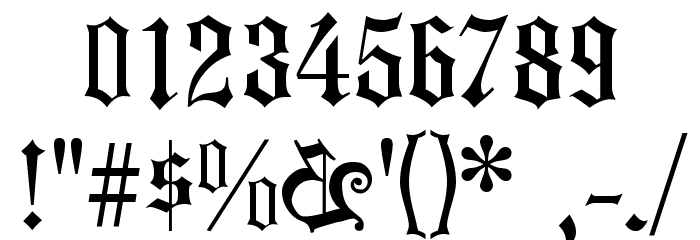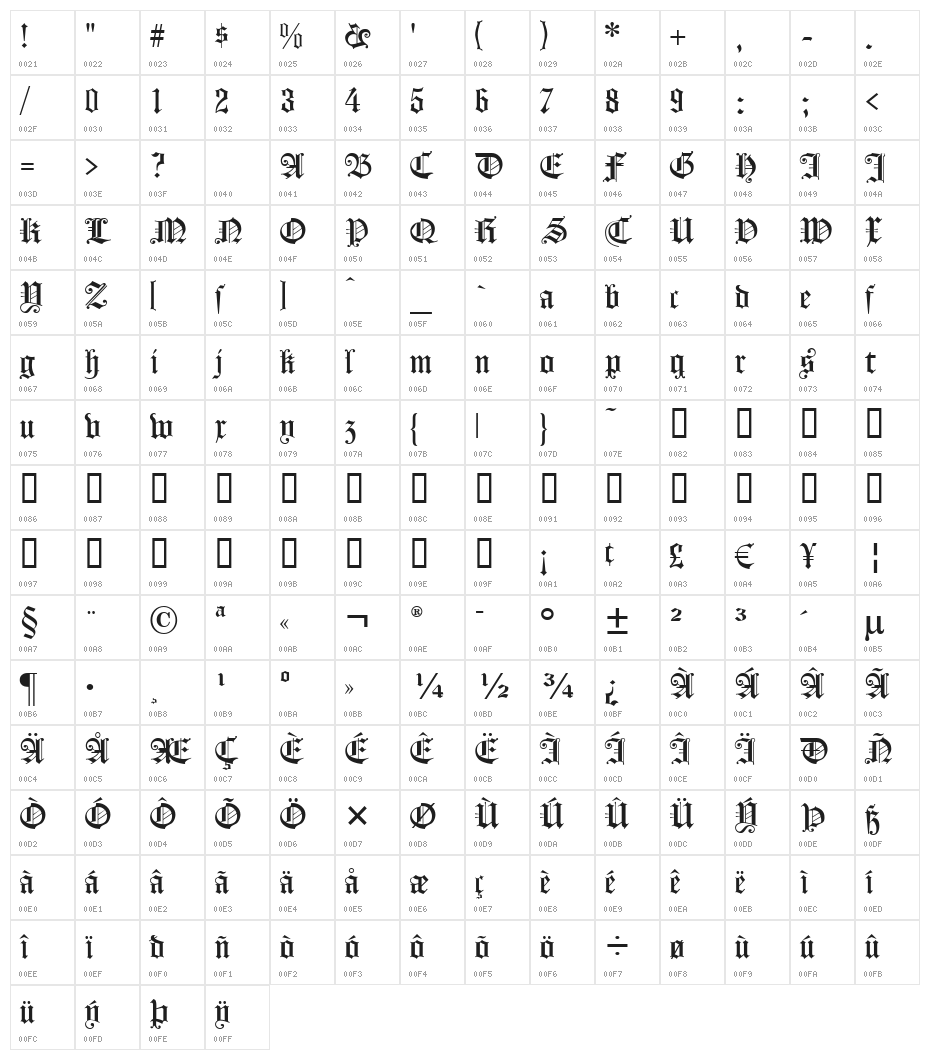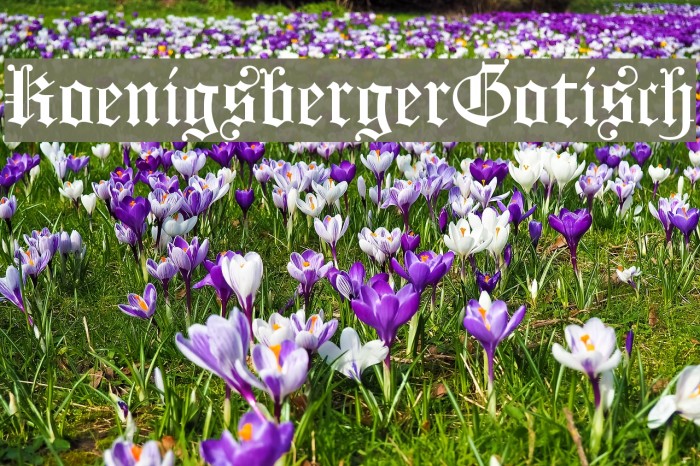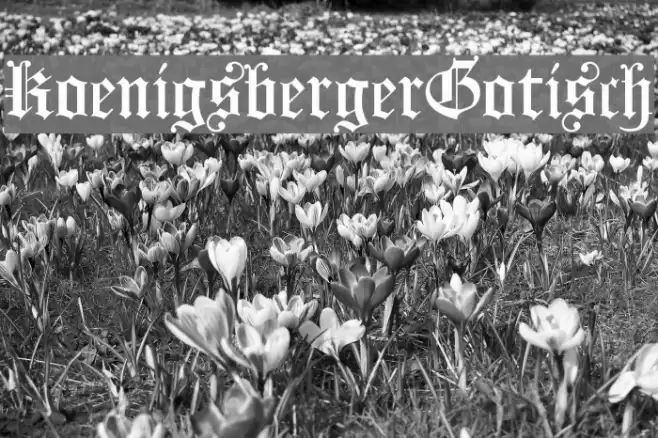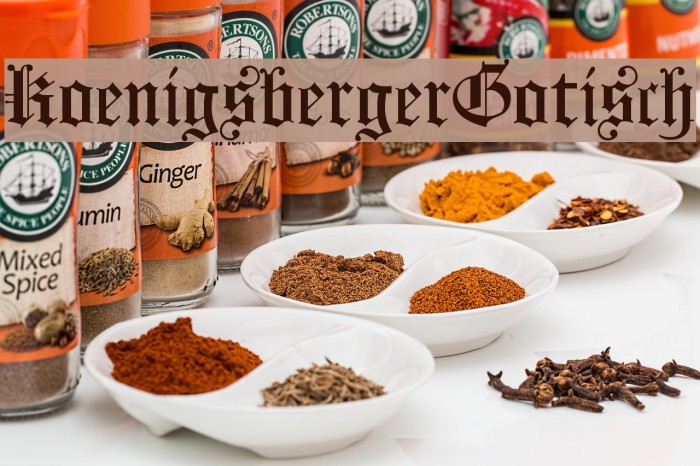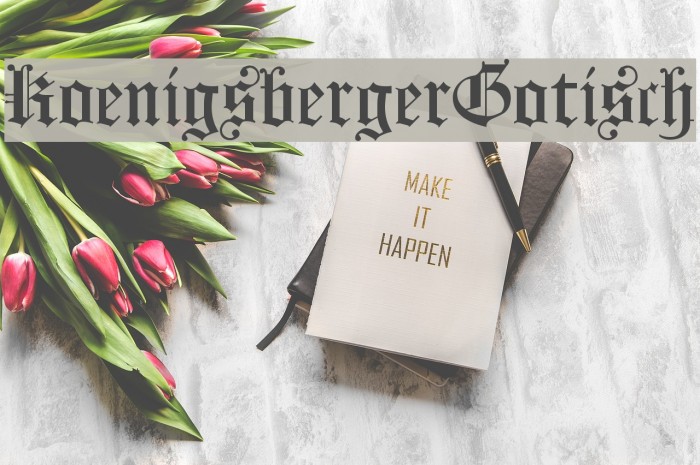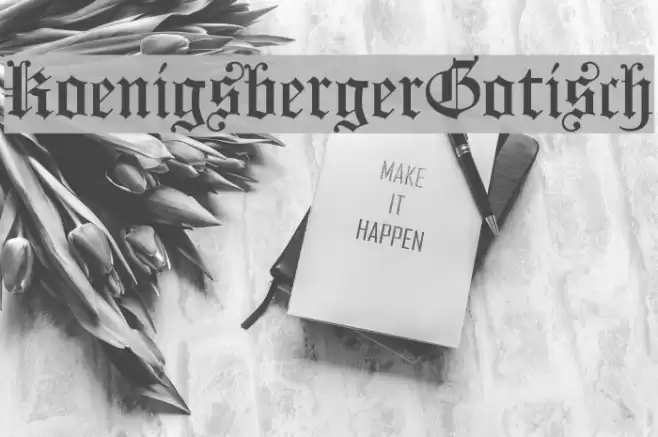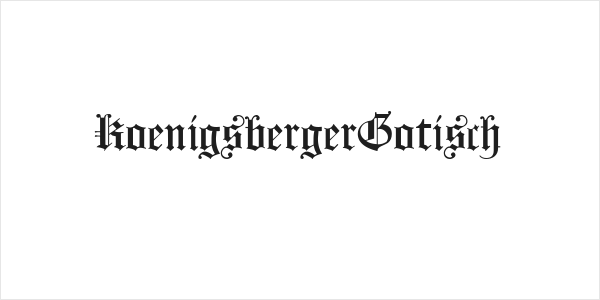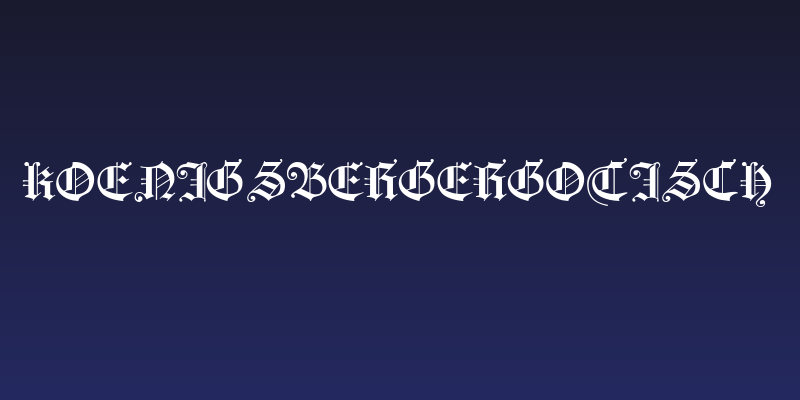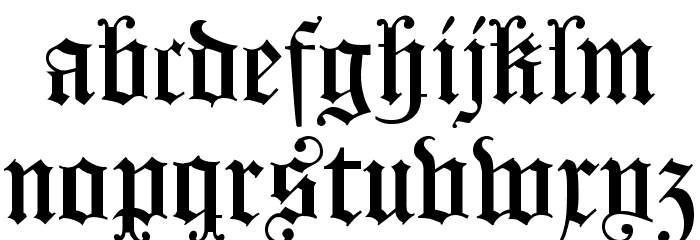
KoenigsbergerGotisch Font
KoenigsbergerGotisch Description
This font exhibits a classic blackletter style, characterized by its intricate and ornate design. The letters are bold and angular, with sharp edges and elaborate flourishes that give it a distinctly medieval appearance. The uppercase letters are particularly elaborate, featuring additional decorative elements that enhance their gothic aesthetic. The lowercase letters maintain the same angularity and boldness, ensuring consistency throughout the typeface. The numerals are equally bold and maintain the gothic style, making them stand out prominently. Special characters are designed with the same attention to detail, ensuring they integrate seamlessly with the rest of the font. This typeface is ideal for projects that require a historical or traditional feel, such as invitations, certificates, or branding for vintage-themed products.